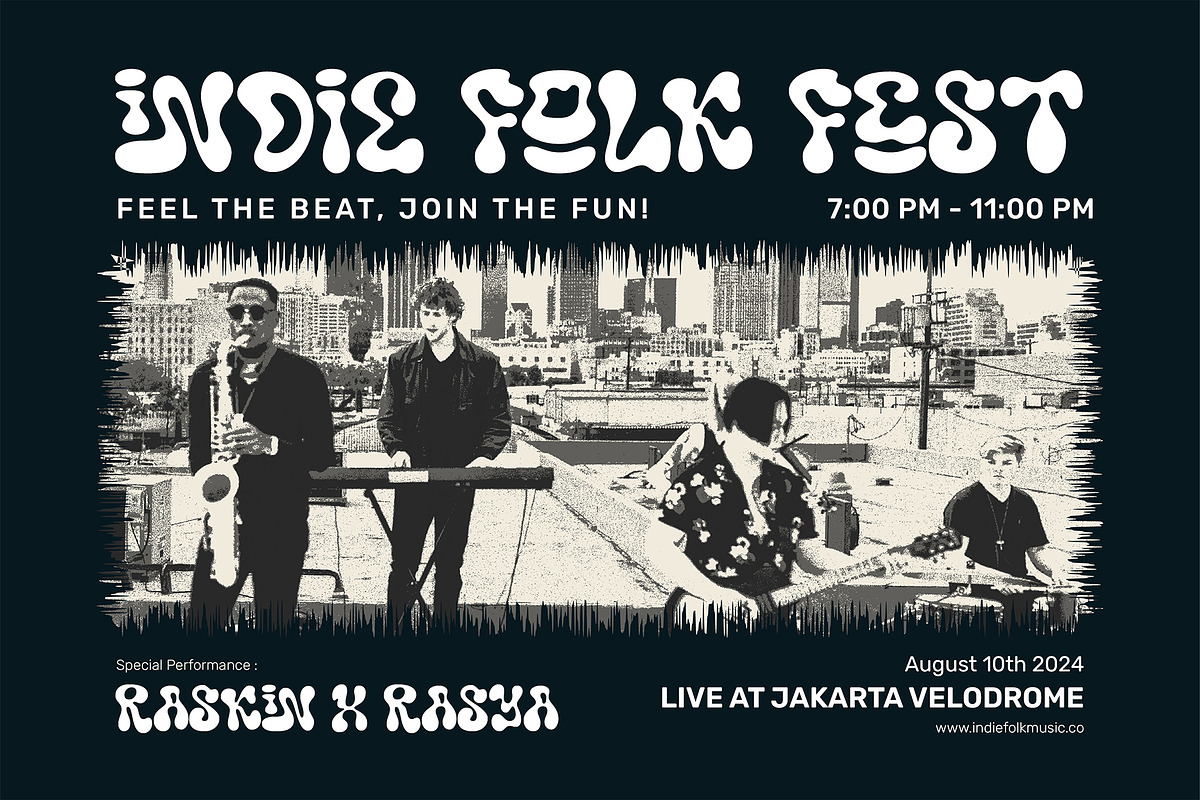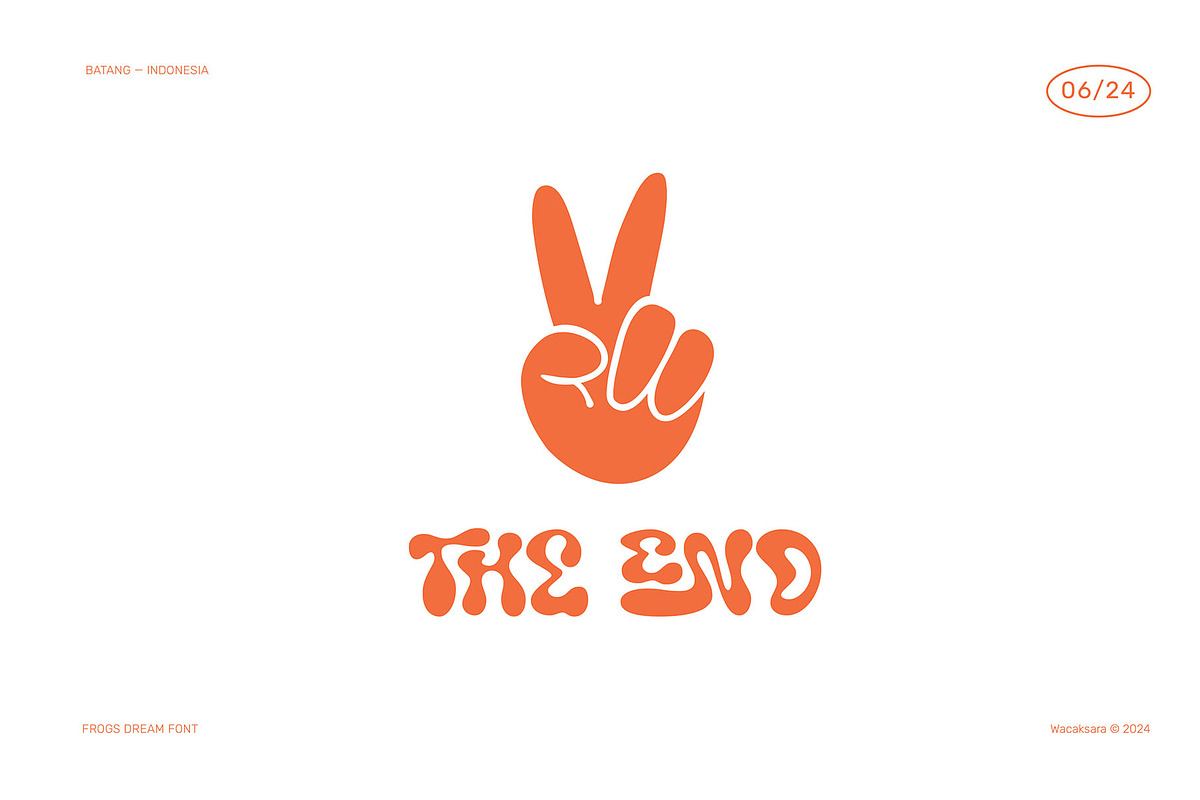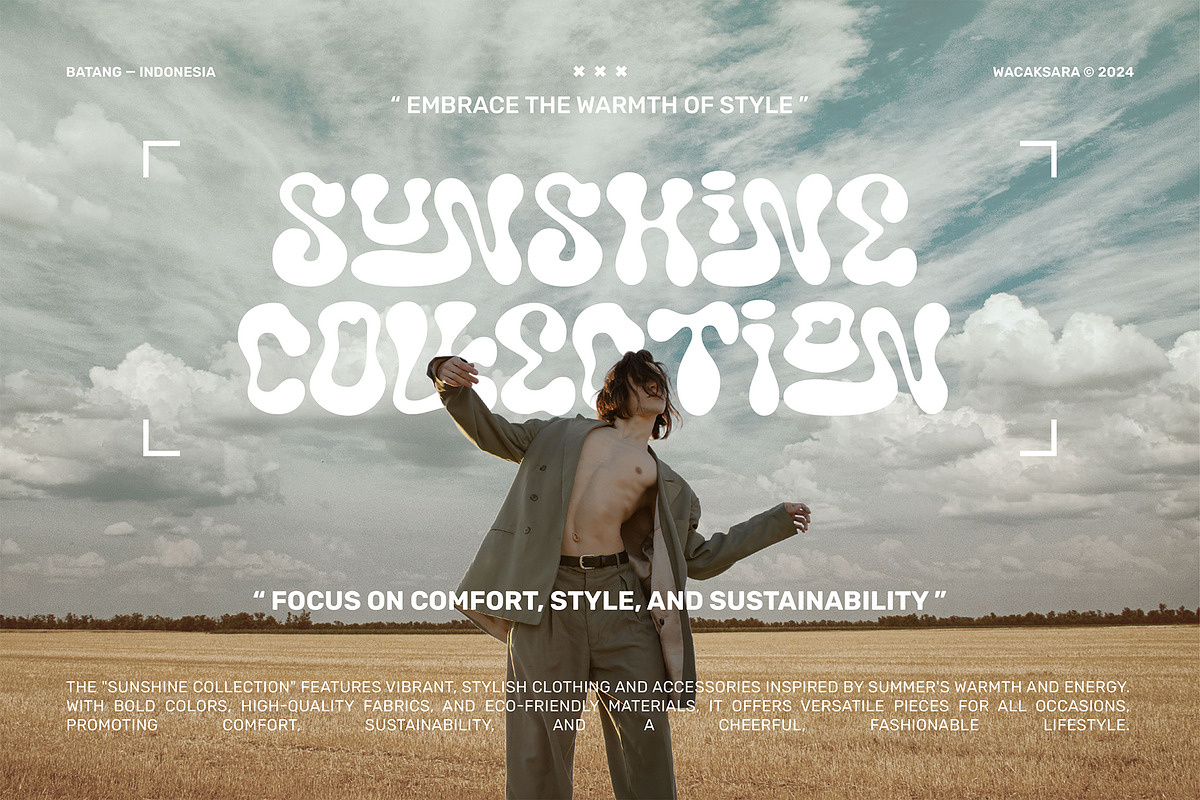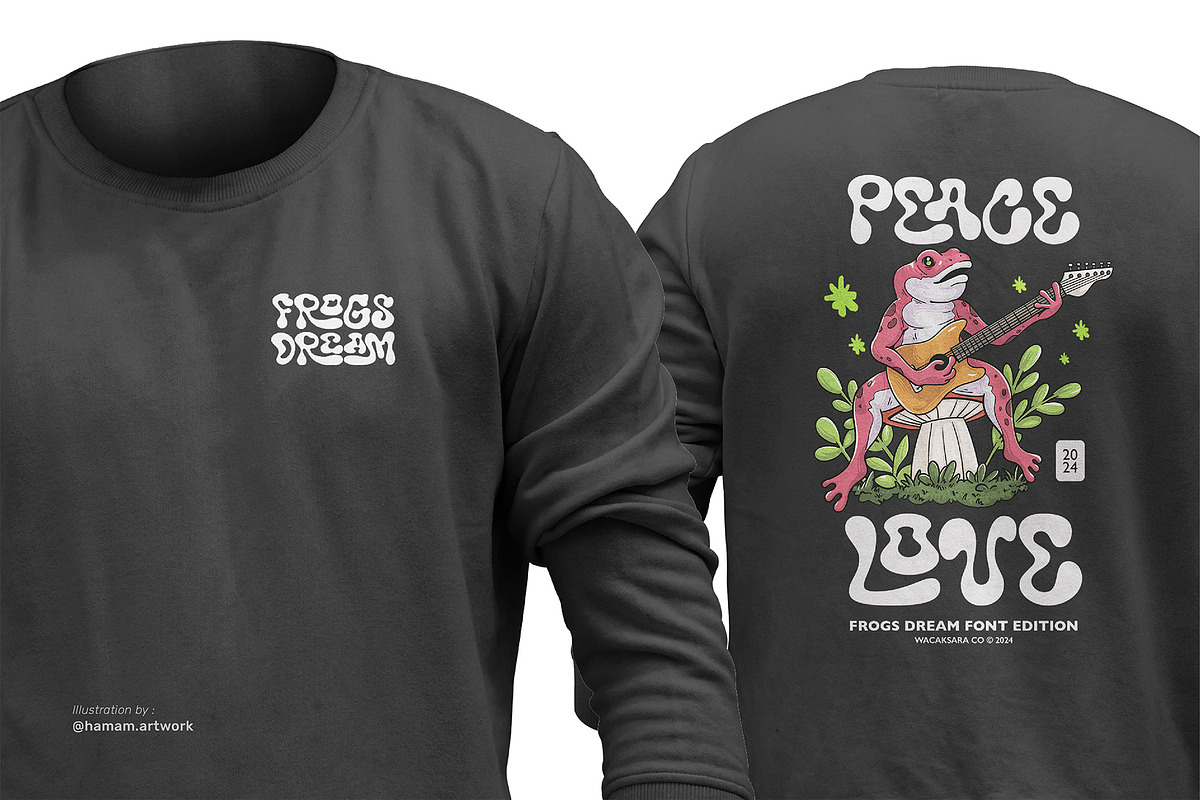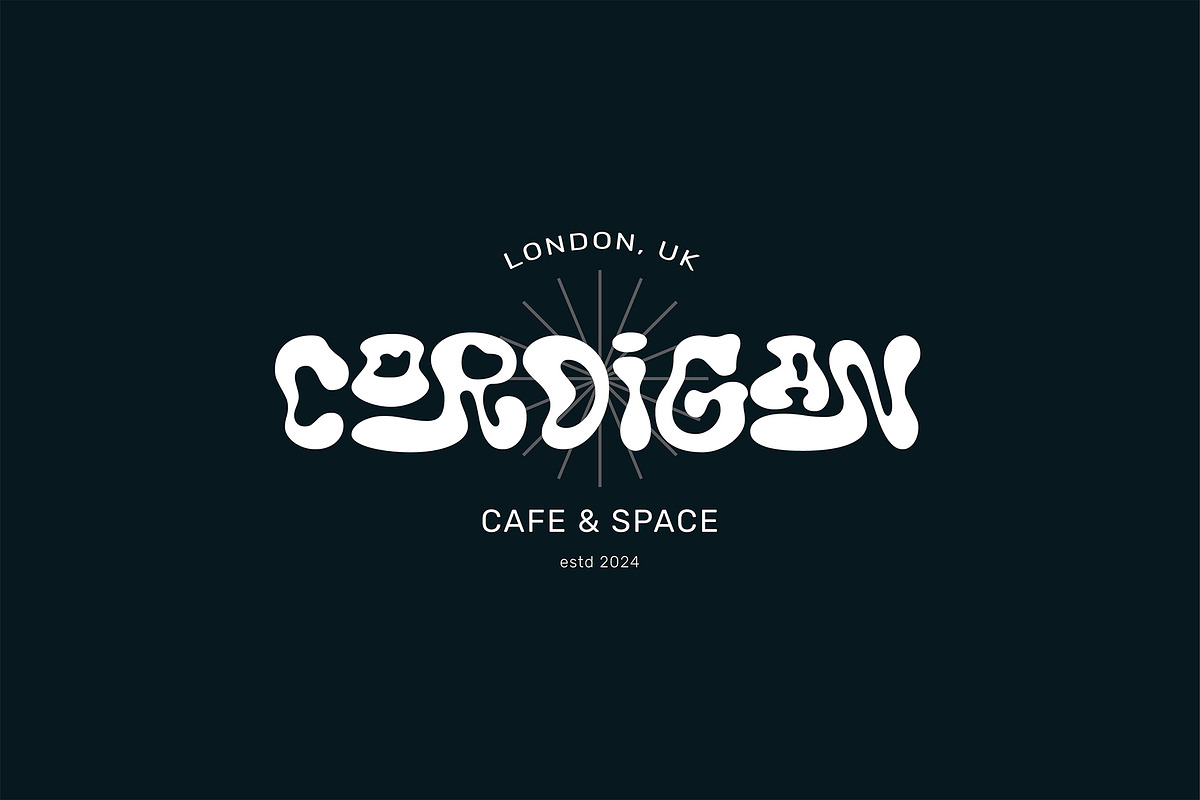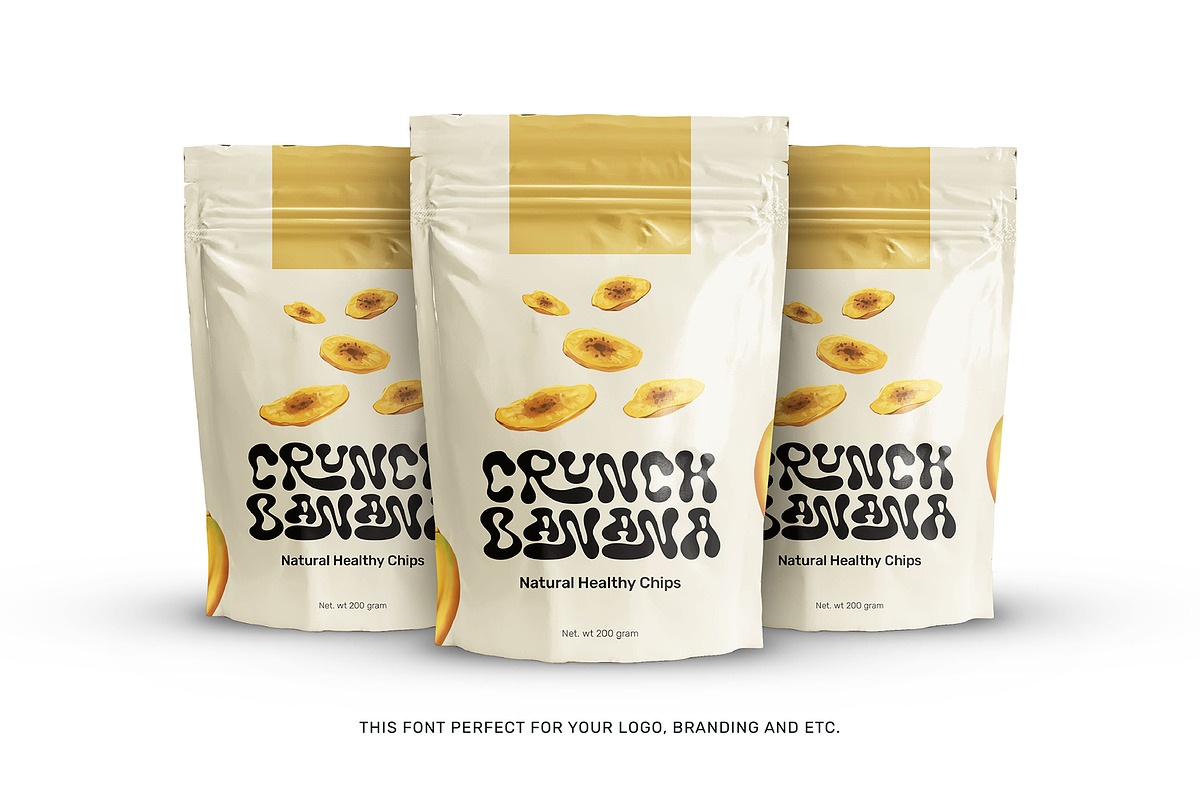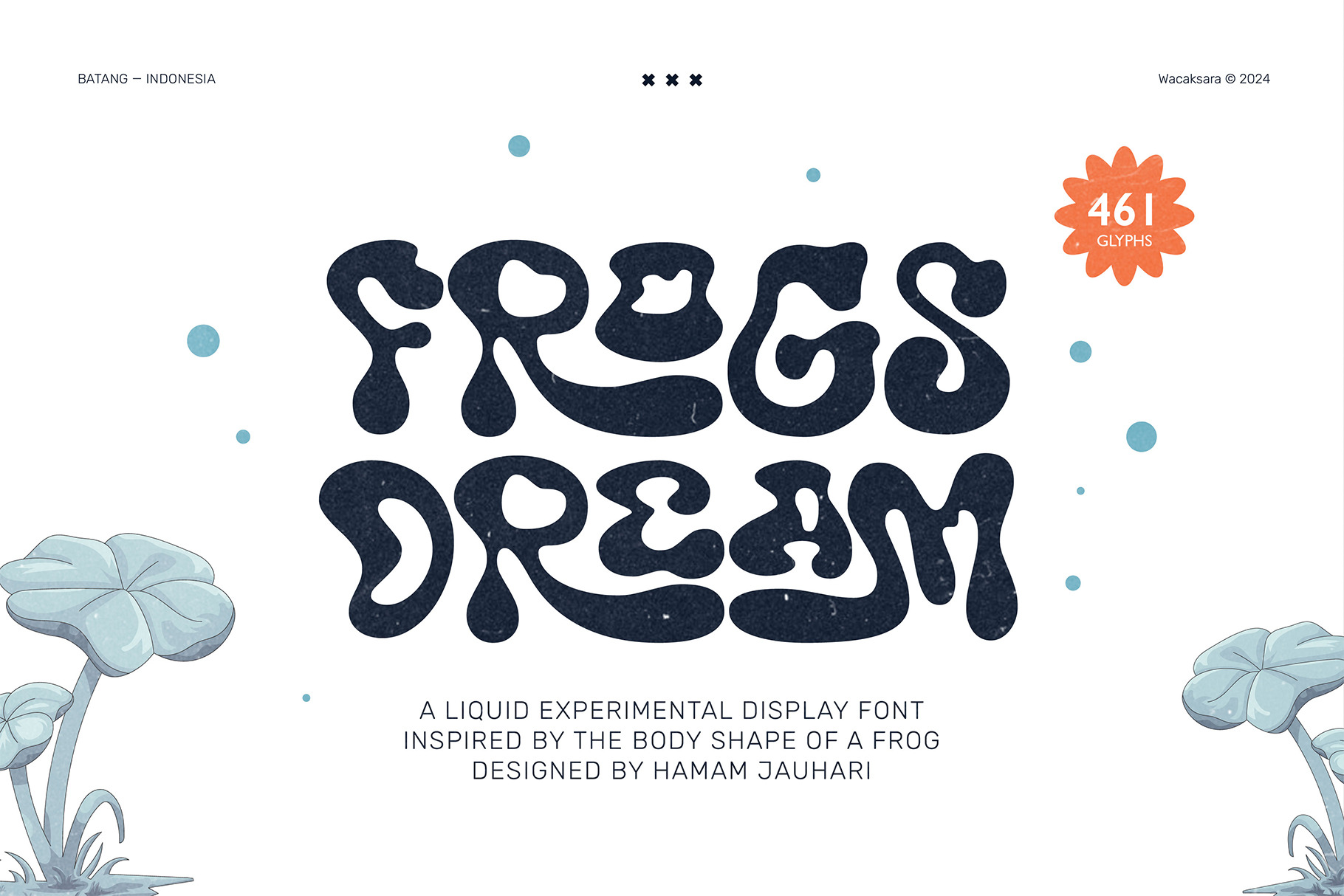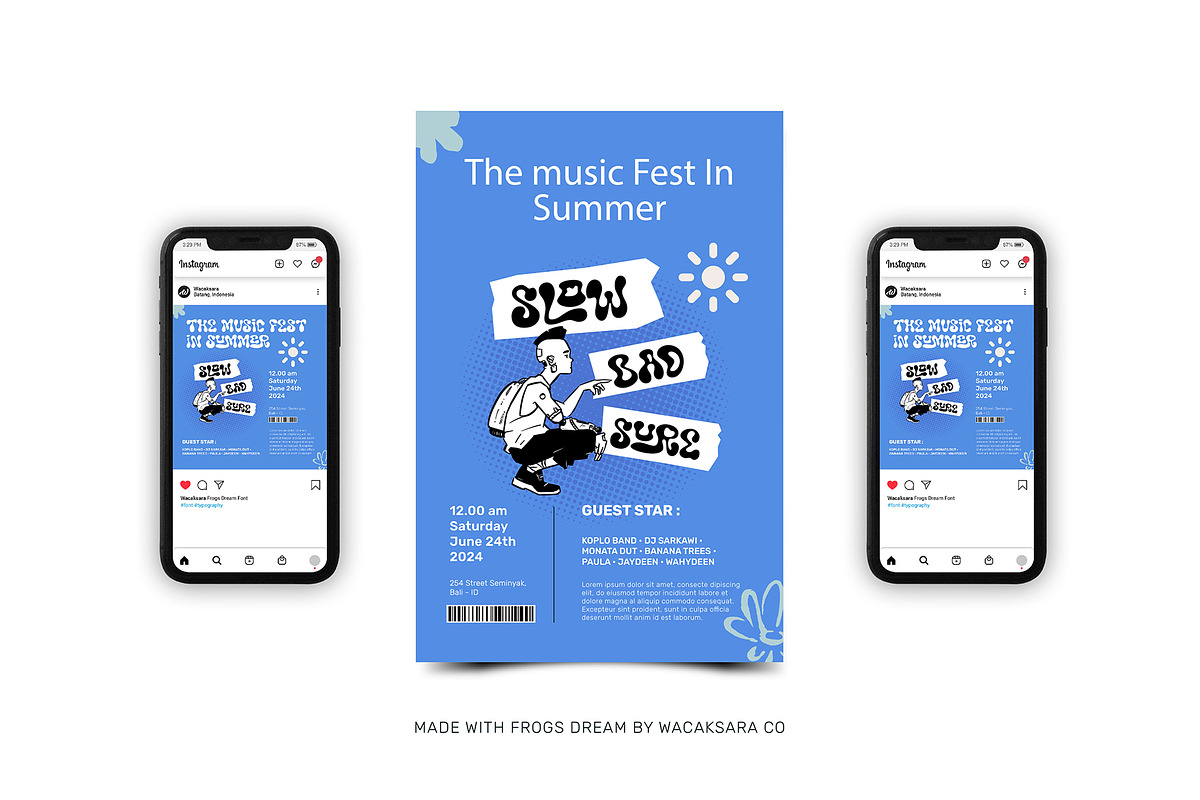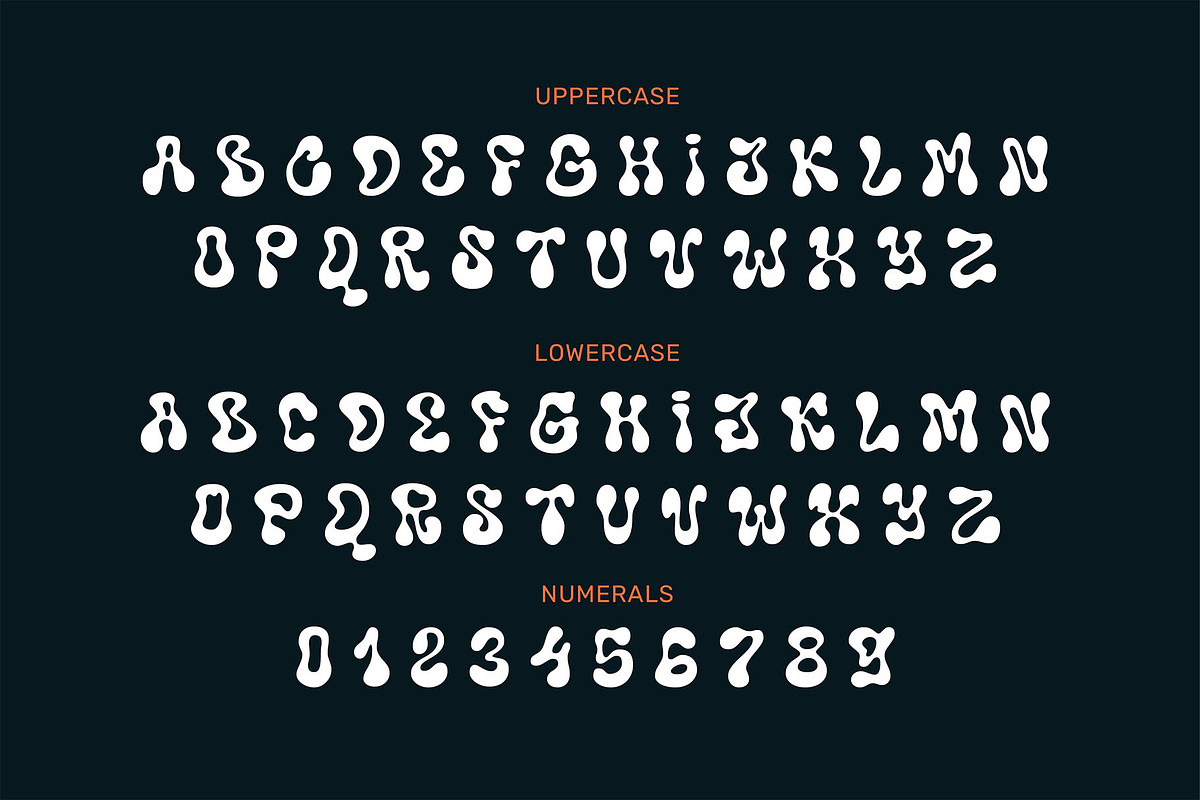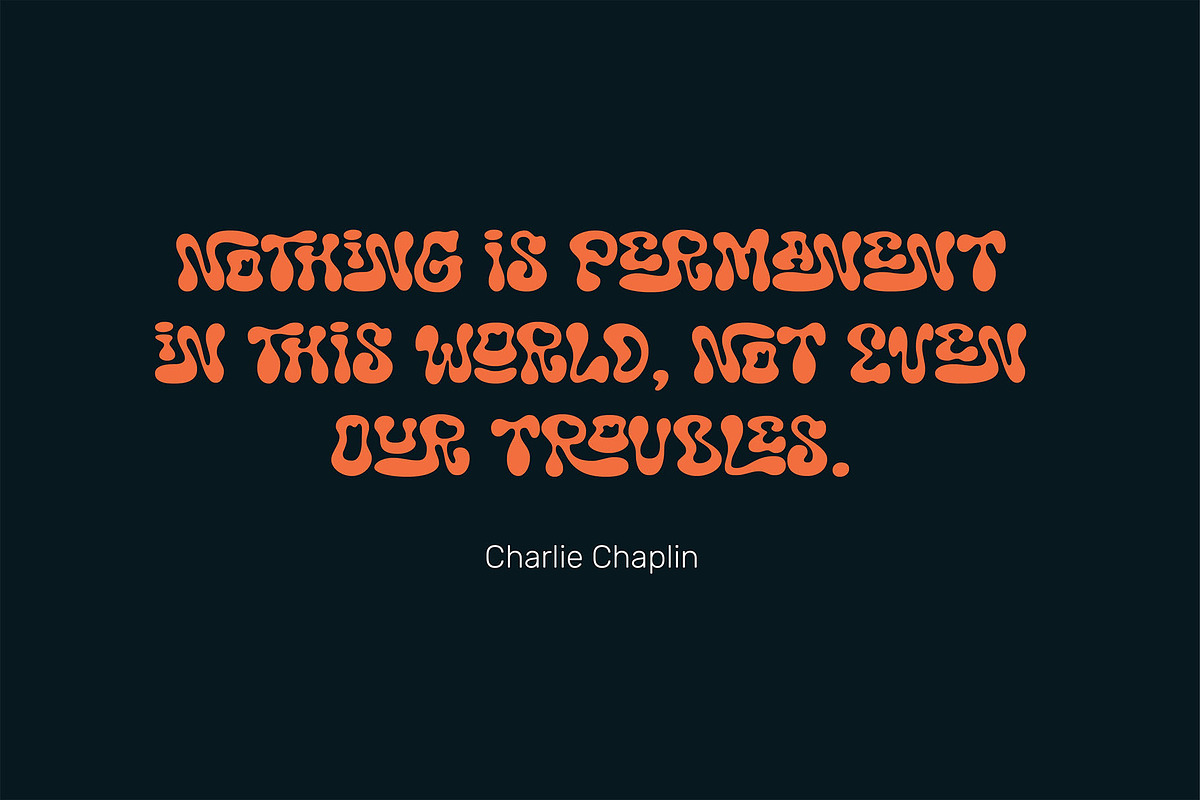
Frogs Dream - Bubble Font
Introducing "Frogs Dream", a delightful and cheerful bubble text font perfect for T-shirts, posters, packaging, and various designs. With its unique and lively bubble characters, this font creates a fun and attention-grabbing appearance. Its creative ligature feature adds a special touch to each word, providing a unique variation in letter designs. "Frogs Dream" is ideal for design projects that aim to showcase unlimited cheerfulness and creativity.
Festures :
- Accents ( Multilingual Characters )